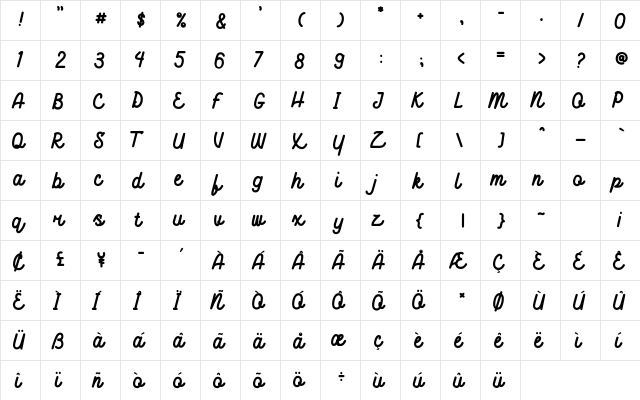
Hellodilo Regular
| Designer | richardwibi |
Design Context for Hellodilo Typeface
Hellodilo is a composed and adaptable typeface that performs quietly and consistently across a wide range of design contexts.